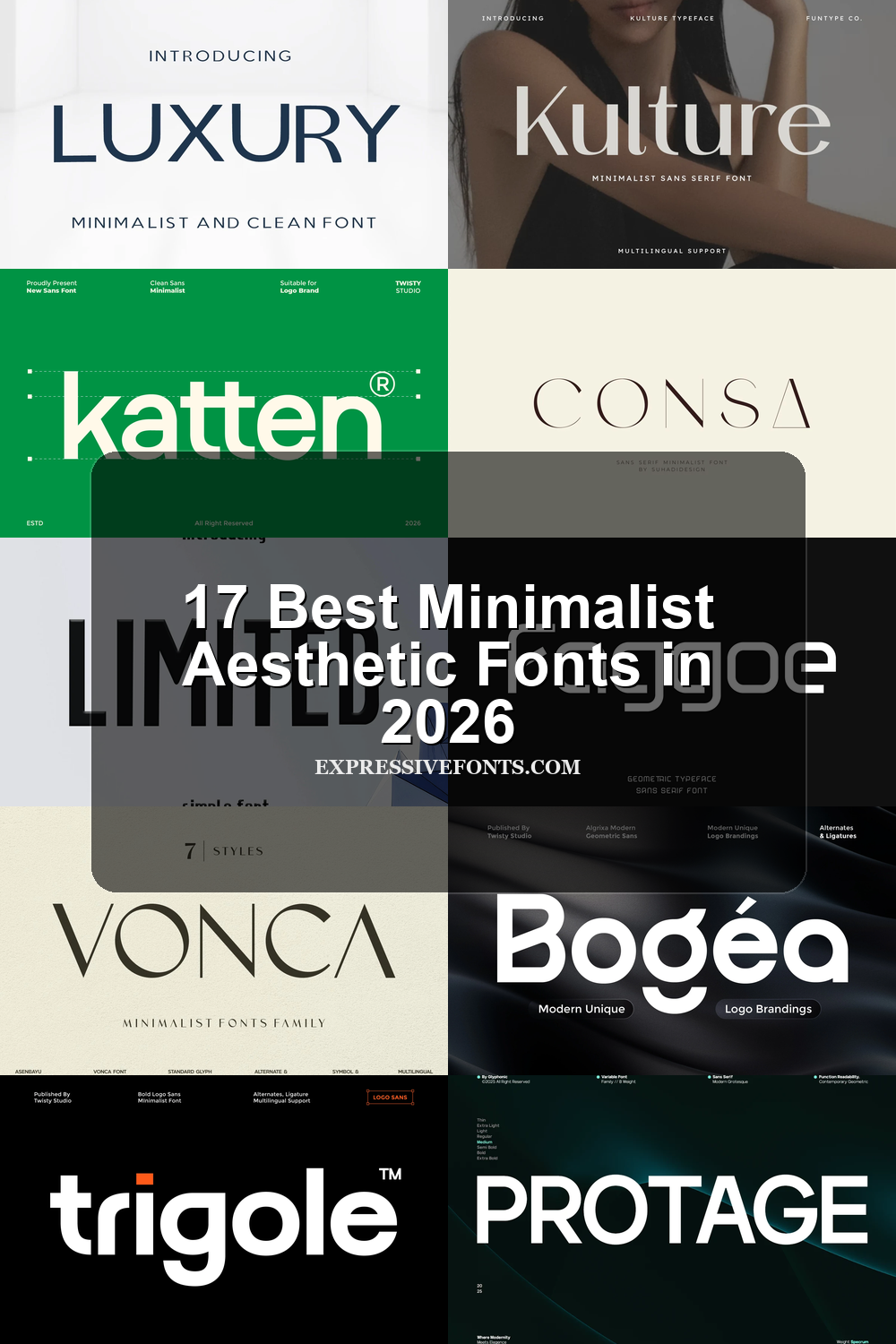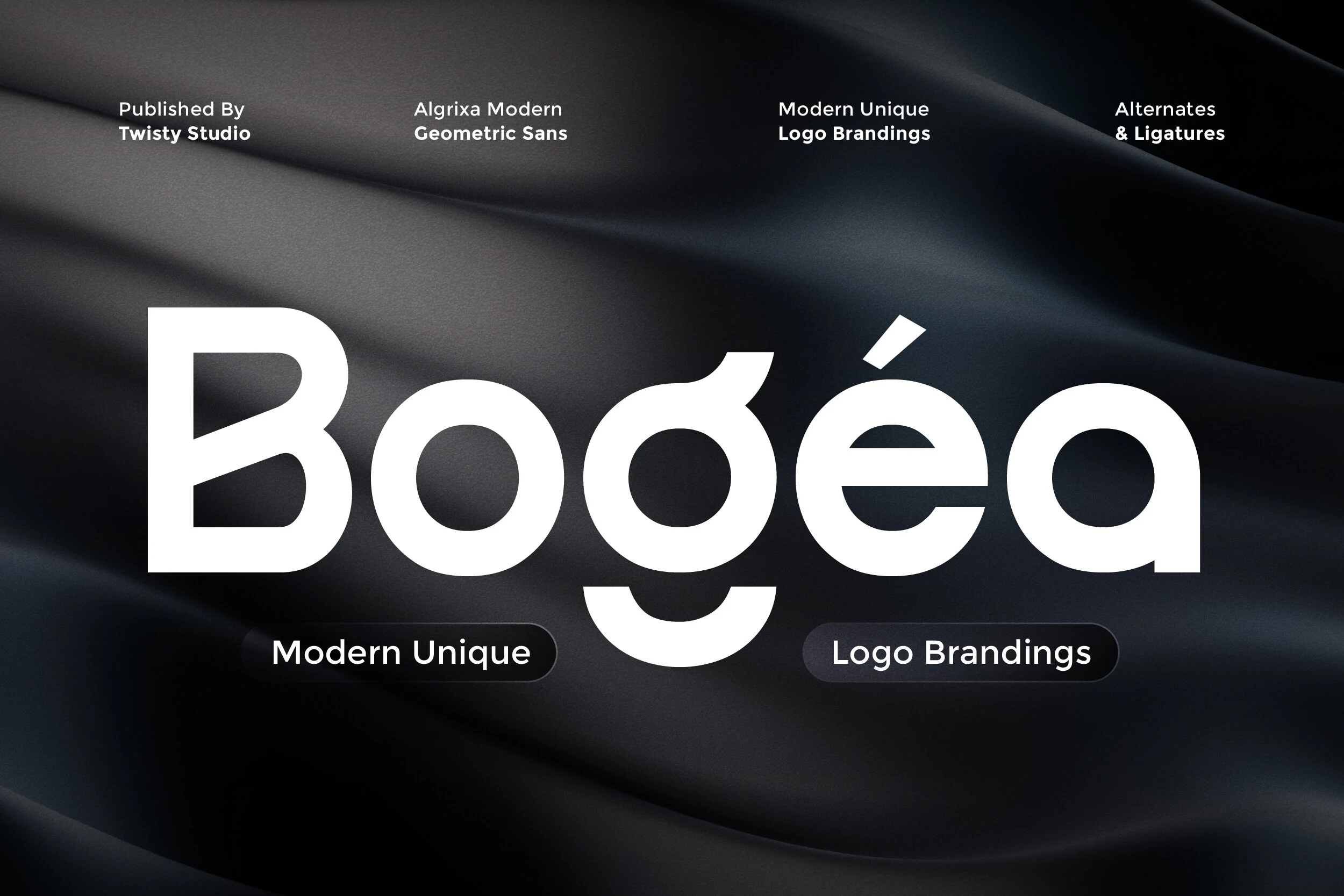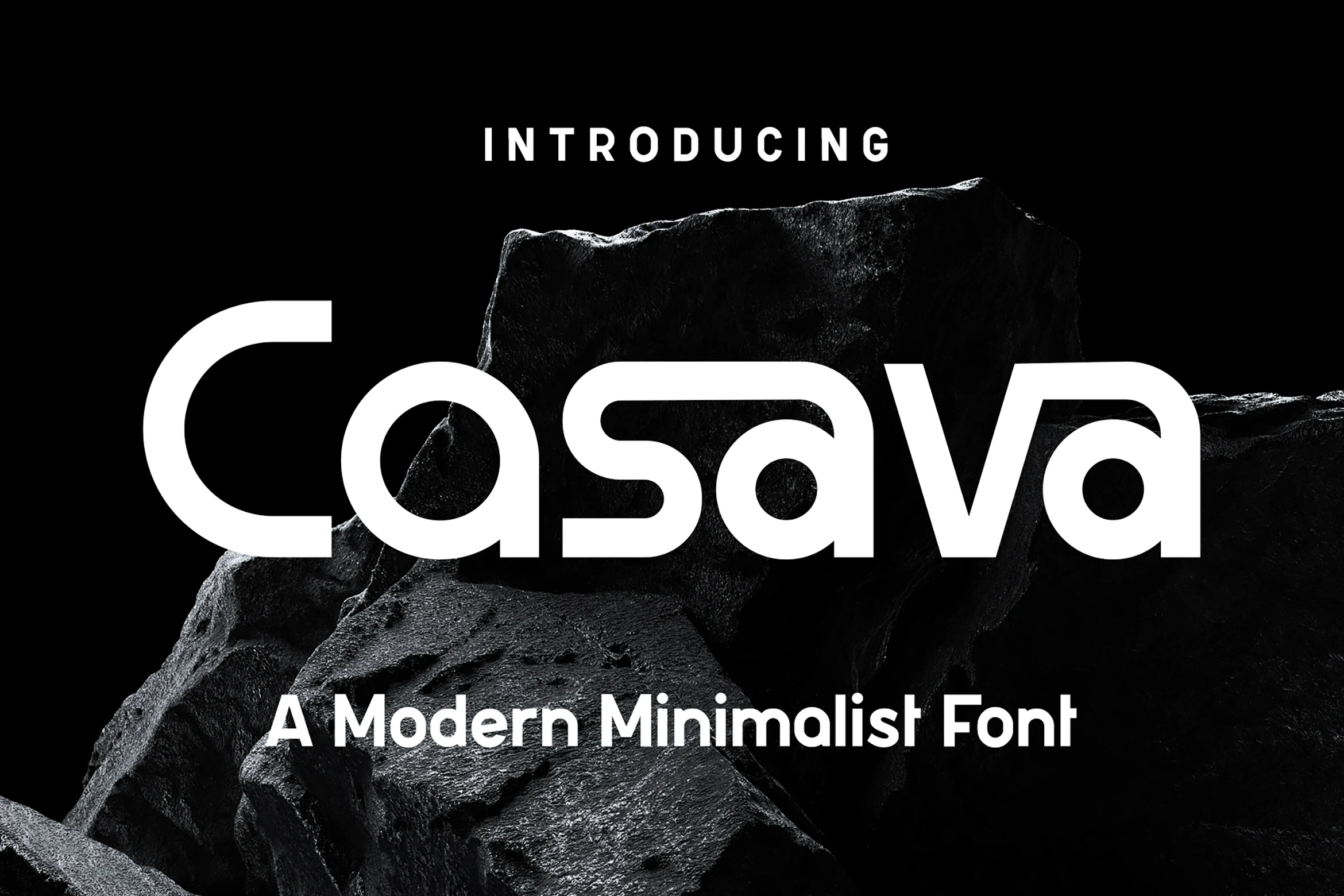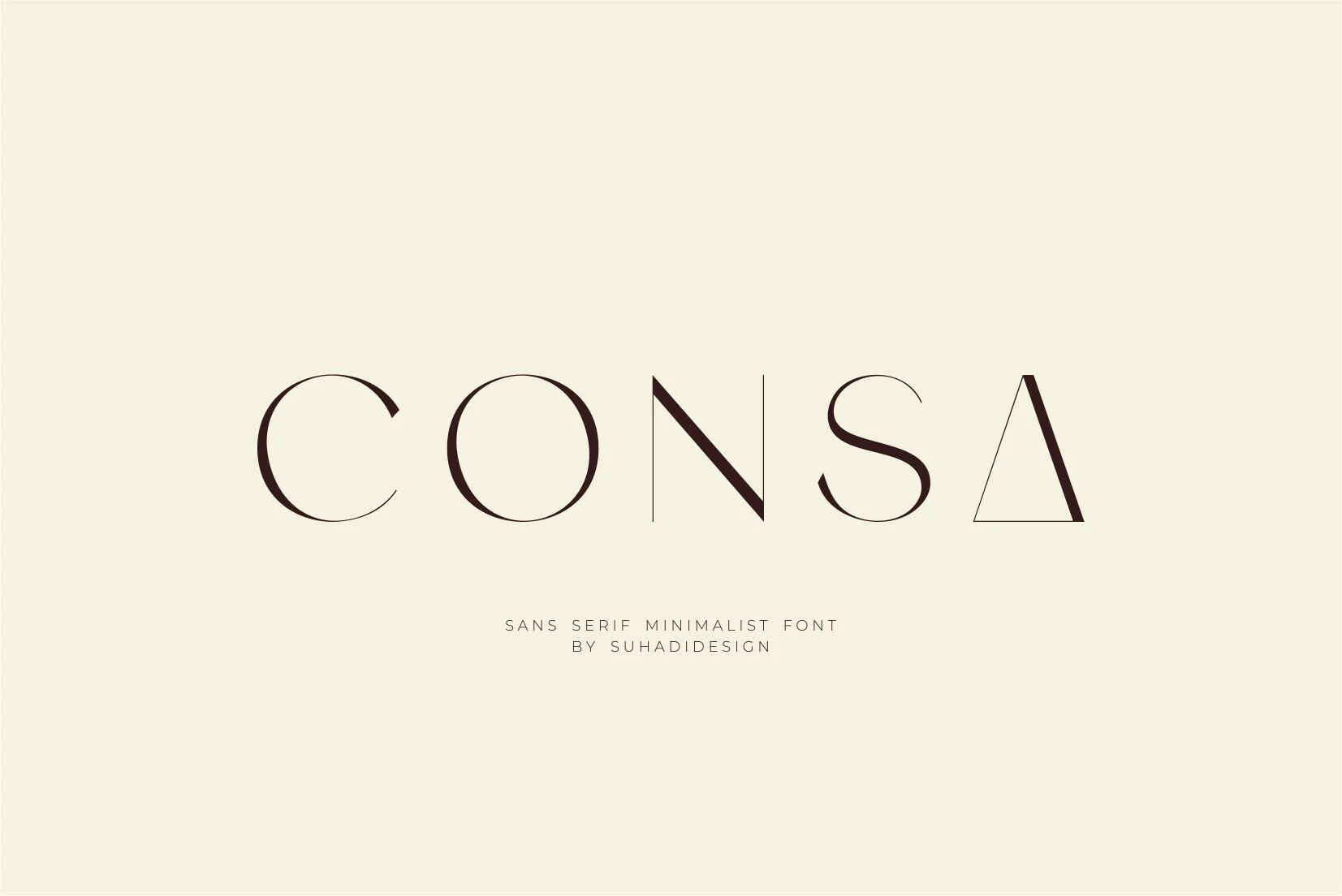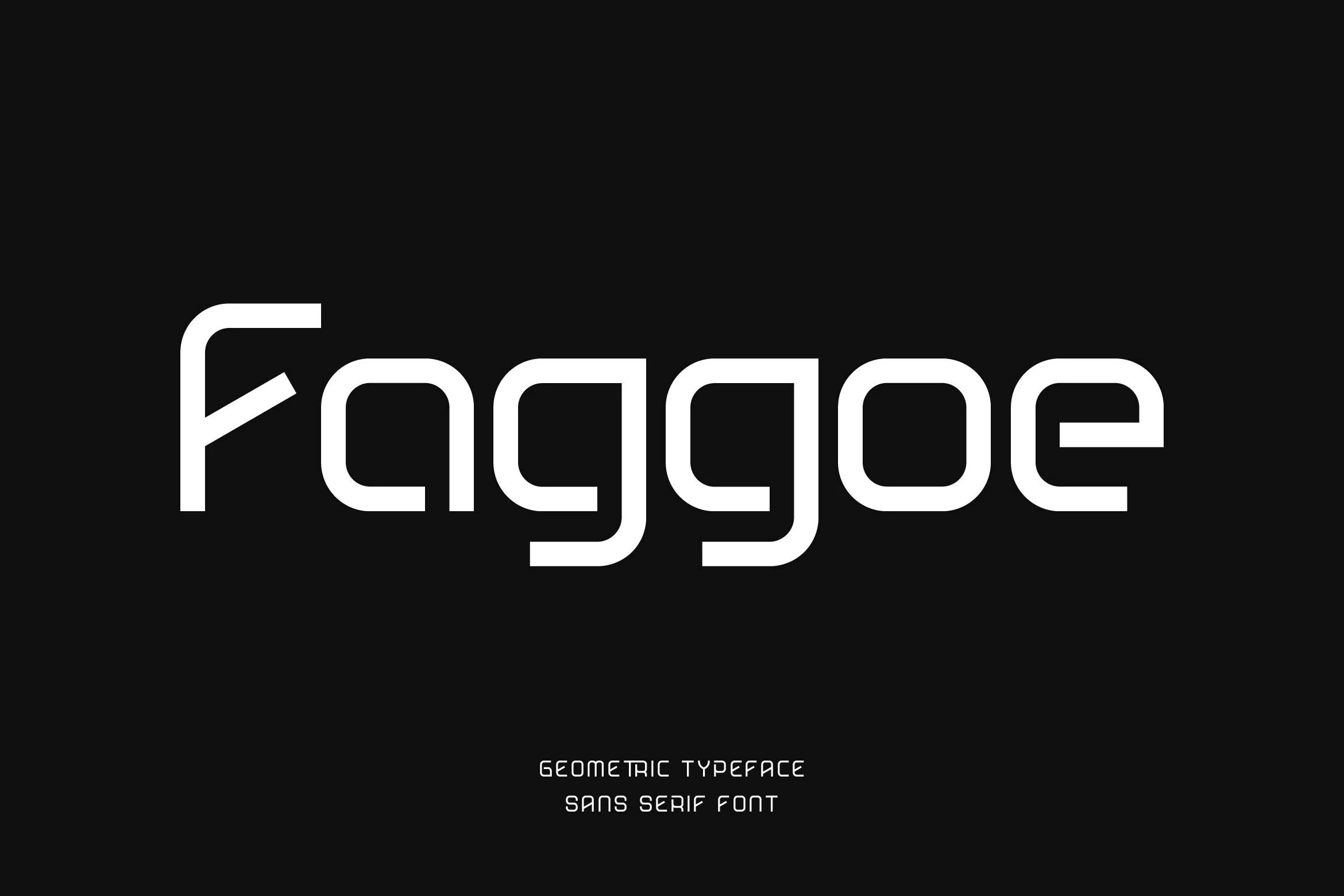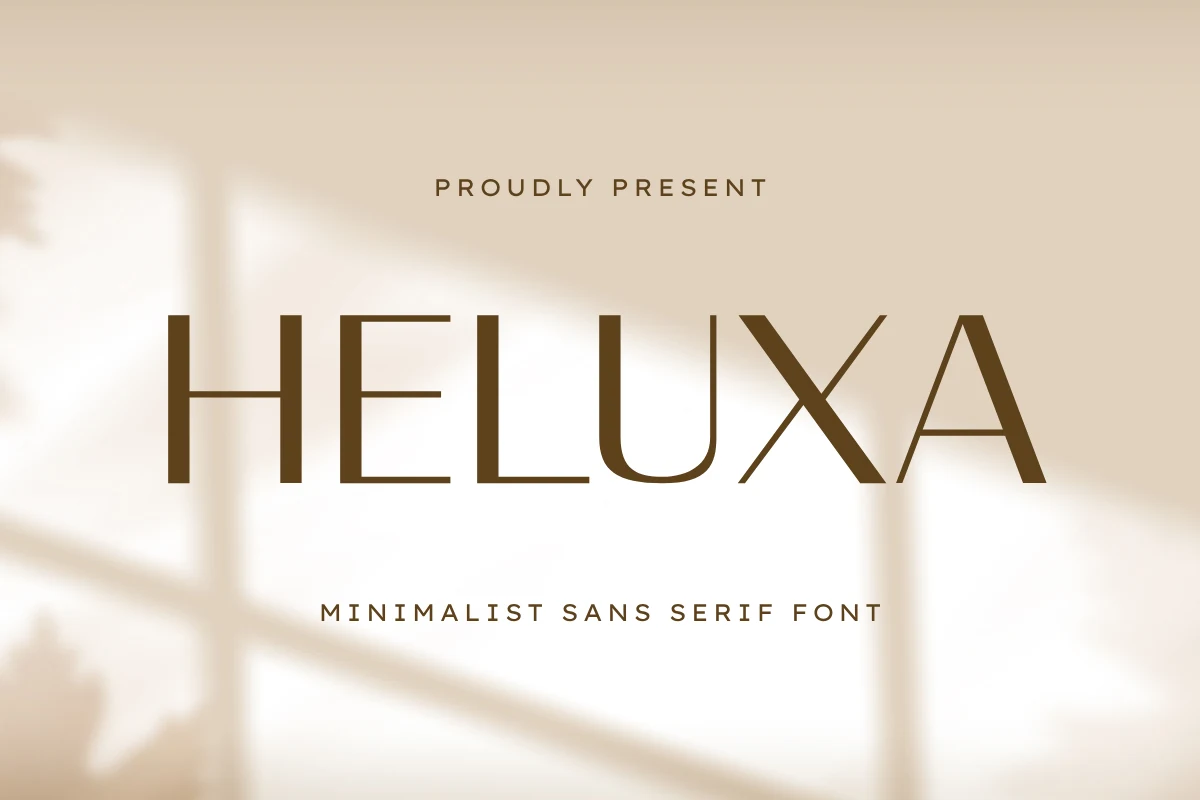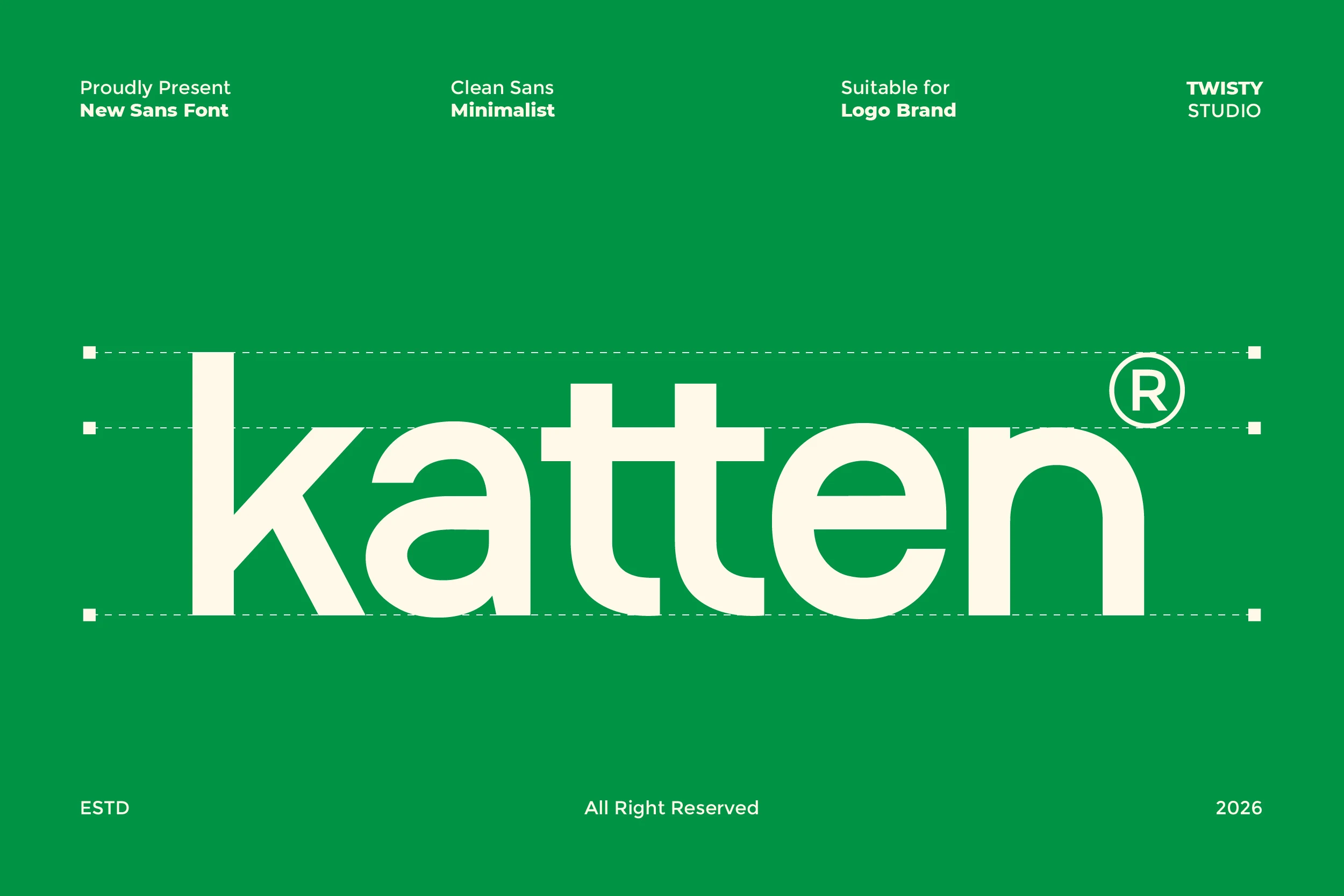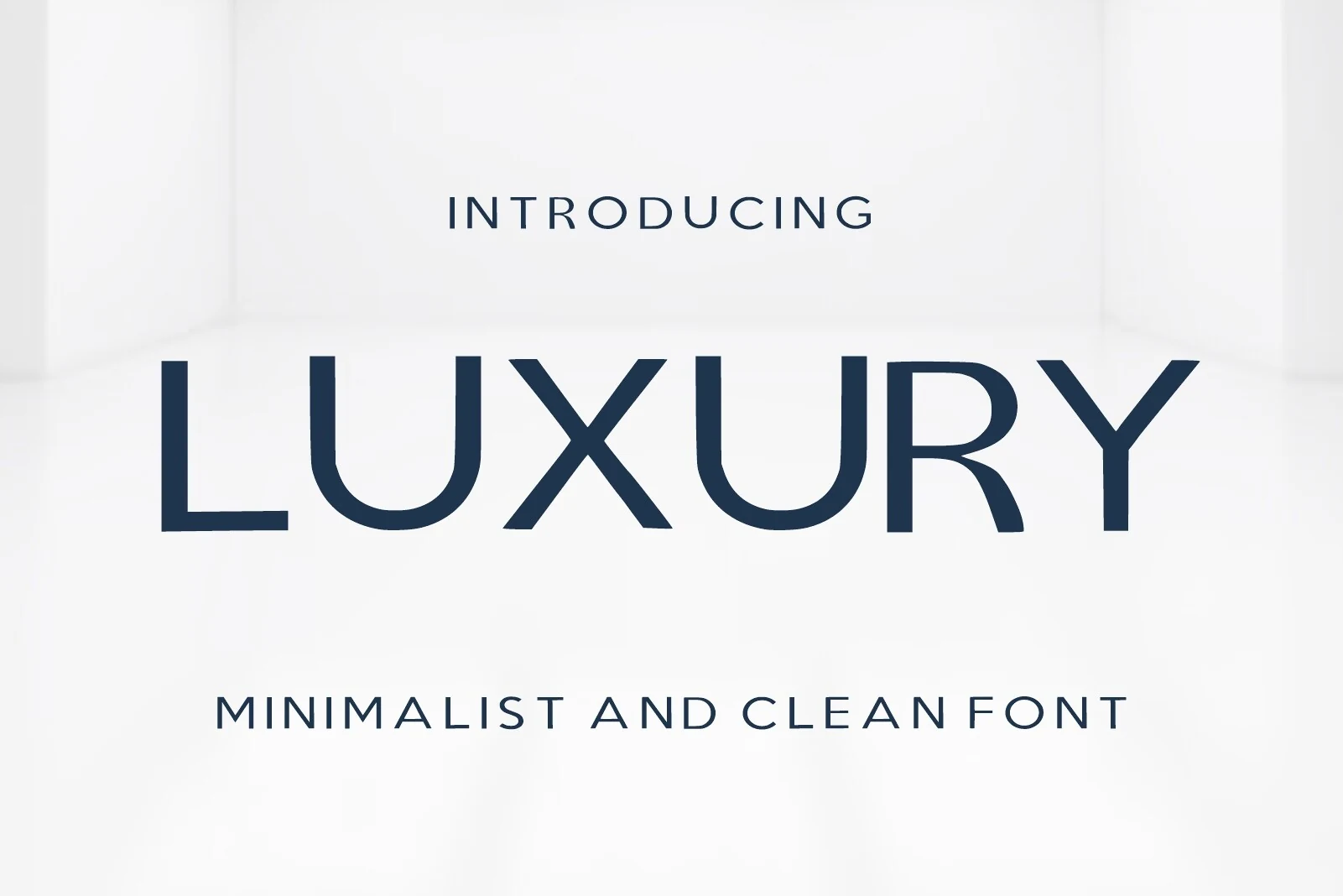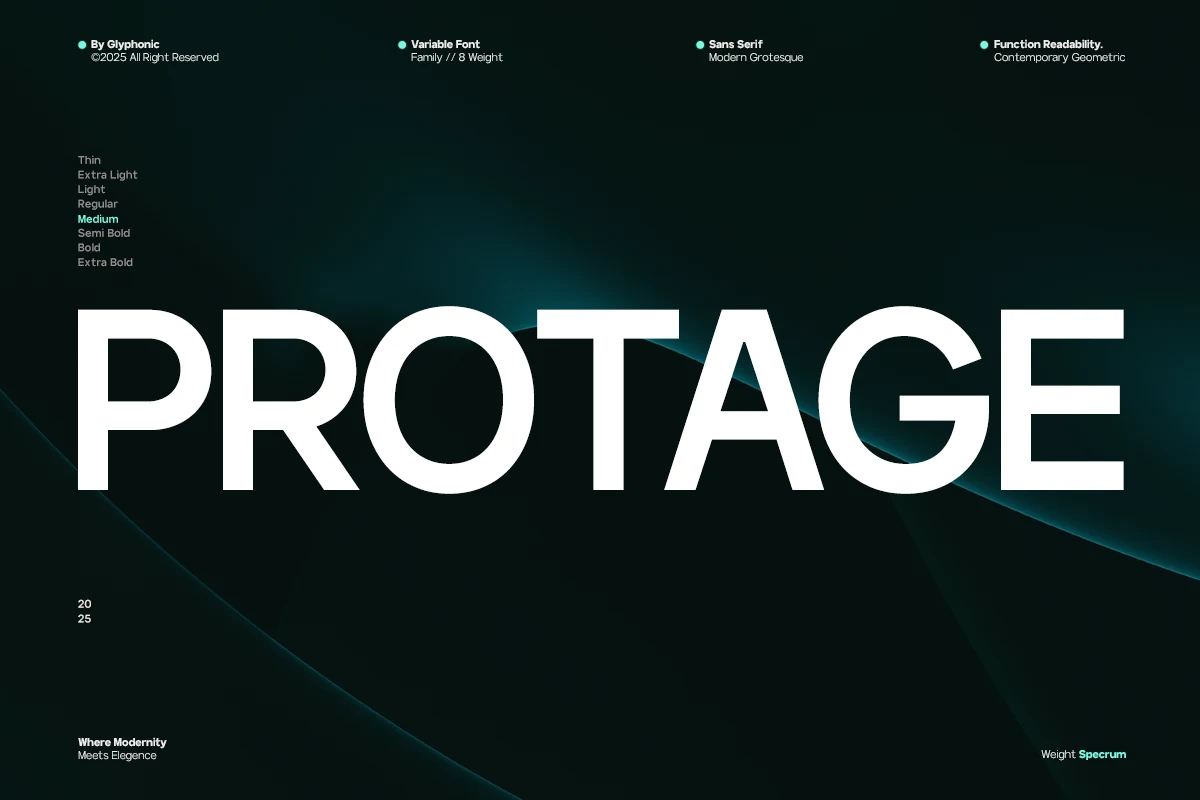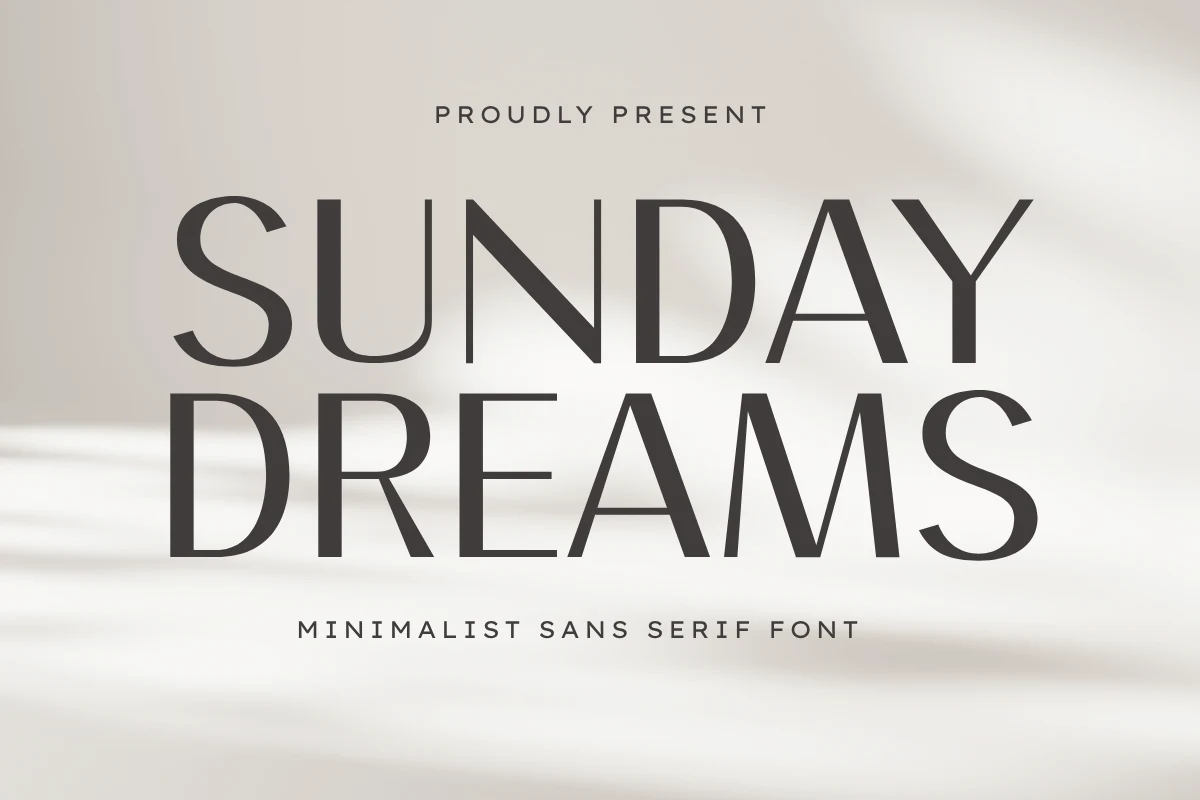
17 Best Minimalist Aesthetic Fonts in 2026
This collection moves from high-contrast display faces with hairlines and sharp terminals to low-contrast geometric forms, condensed silhouettes, and experimental apertures. These Minimalist Aesthetic Fonts are best suited to logos, packaging, editorial headlines, posters, and other applications where construction must remain clear at display sizes.
Minimalist Aesthetic Fonts: High-Contrast Display
These Minimalist Aesthetic Fonts rely on wide proportions, pronounced thick-to-thin contrast, and crisp terminals. They create the sharpest editorial impact, but generally need larger sizes than the steadier geometric group.
Consa Font
Consa Font displaying wide geometric letterforms with high stroke contrast and a triangular final A.
Consa Font uses wide geometric proportions and sharp thick-to-thin contrast, culminating in a distinctive triangular final A. Its ligature features add flexibility for logos and branding, though thin strokes make it most reliable for large display text rather than body copy.
Vonca Font
Vonca Font displays wide geometric sans-serif lettering with high stroke contrast, thin hairlines, and sharp flared terminals.
Wide letterforms, open negative space, and flared sharp terminals give Vonca Font an airy presence in large labels and posters. Its hairlines can weaken at small sizes, so it is better reserved for prominent branding, packaging, and short display lines.
Melora Font
Melora Font displayed in large uppercase letters with geometric proportions, high stroke contrast, and crisp terminals.
Melora Font is a strong choice when a headline needs a tall, compact silhouette. Its bold geometric structure, wide apertures, and sharp terminals create a forceful outline for posters, album covers, and branding, while high contrast makes tiny text less dependable.
Aurena Font
Aurena Font is a wide-proportioned, high-contrast sans serif with open apertures and elegant terminals.
Aurena Font gains its clarity from open apertures and clean geometric lines, with terminals that add an editorial finish. Large headlines remain easy to read, but the high contrast is less suitable for extended small copy.
Kulture Font
Kulture Font displayed as a high-contrast serif with sharp elongated serifs and widely spaced upright letterforms.
Kulture Font is a high-contrast serif with elongated sharp serifs, slightly wide spacing, and a fixed upright posture. Full multilingual support and OTF and TTF formats make production flexible, while its strongest role remains headlines, covers, and identity work.
Heluxa Font
Heluxa Font shown in a wide, upright sans serif style with high stroke contrast and geometric letterforms.
Sharp angled terminals give Heluxa Font a precise edge within its wide geometric sans construction. Its high contrast frames logos, short headlines, packaging, and invitations effectively, but the thin-to-thick shifts make long-form reading a poor fit.
Sunday Dreams Font
Sunday Dreams Font displayed in upright high-contrast sans serif lettering with thin horizontal strokes and thick vertical strokes.
Sunday Dreams Font combines geometric construction with a subtle humanist influence: horizontal strokes stay thin while verticals carry more weight. Its proportions suit editorial layouts, packaging, and identity work, provided the design gives its contrasting strokes generous display scale.
Geometric Clarity and Structure
This group emphasizes monoline or low-contrast geometry, open counters, and consistent spacing. Compared with the display faces, its construction is calmer and more dependable for headers, identity systems, and medium-sized text.
Protage Font
Protage Font shown as a wide geometric sans serif with stable letterforms, low contrast, and consistent stroke thickness.
Protage Font uses wide, low-contrast geometry, consistent strokes, and horizontal cut terminals for a technical character. Because its forms remain stable across sizes, it offers more versatility than the high-contrast options for branding, editorial layouts, digital work, and smaller text.
Faggoe Font
Faggoe Font in a wide, monolinear geometric sans serif style with rounded outer corners and open apertures.
Faggoe Font pairs squared construction with rounded corners, open apertures, and a monoline texture. Its spacious proportions support readable headers and display text, although the width and spacing may become inefficient when the setting is very small.
Katten Font
Katten Font is a lowercase geometric sans serif with uniform strokes, rounded terminals, and open counters.
Katten Font is one of the more adaptable Minimalist Aesthetic Fonts here, using rounded terminals, open counters, generous spacing, and uniform strokes. Those features support branding, headlines, and medium-sized text instead of restricting it to large display use.
How to Choose the Right Font
Choose among these Minimalist Aesthetic Fonts by matching construction to scale: high contrast and sharp joins need generous sizing, while uniform strokes and open counters hold up better in smaller text. Condensed faces save width, alternates add identity, and wider geometric styles provide clearer spacing for packaging, headers, and editorial systems.